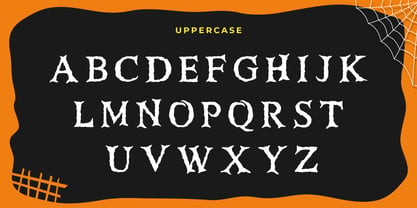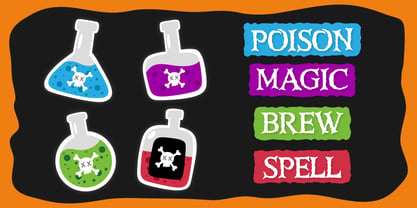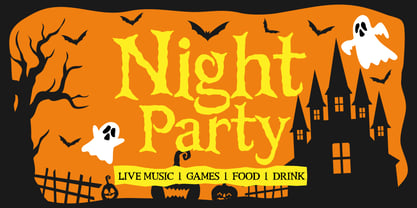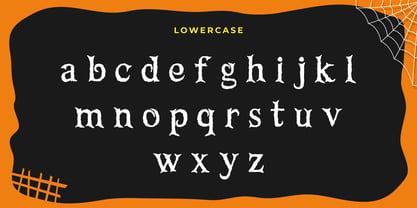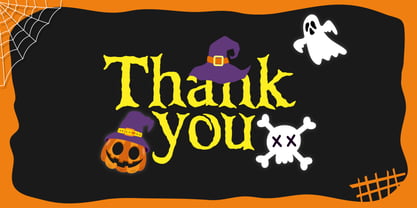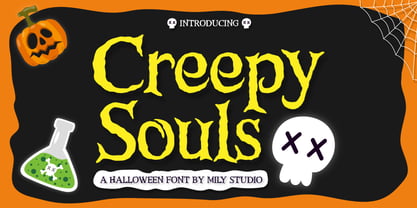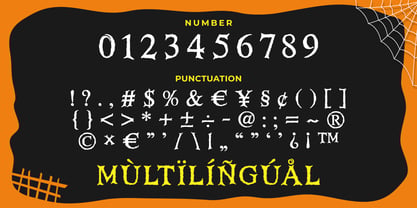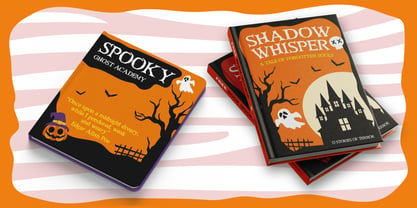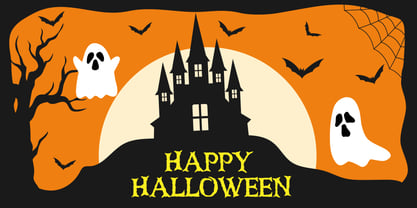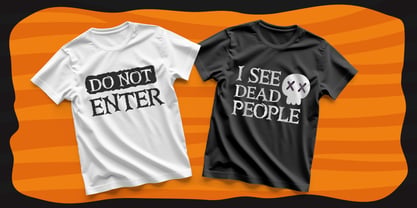
Creepy Souls
CREEPY SOULS is a bold and rough Serif Display Typeface that captures the essence of vintage horror and the Halloween season. Designed specifically for high-impact headlines and titles, Creepy Souls features heavily distressed edges and slightly wobbly letterforms to give your projects a genuinely spooky and antique feel. This font is a perfect choice for designers looking for a typeface that is both strikingly macabre and highly readable in large sizes.